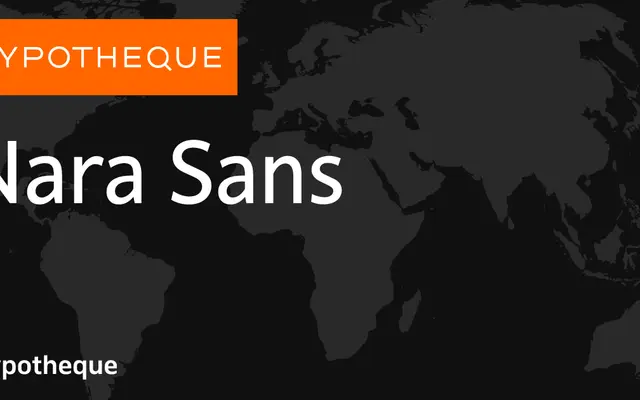
Nara Sans
A humanist sans in five weights with cursive and italic variants, released as part of a larger system alongside a companion serif family.
Nara Sans pairs with the serif Nara to form a cohesive type system, each family running across five weights from Light to Black with both cursive and italic counterparts. A variable font version is also available. The cursive styles sit between upright and italic, offering a middle register that suits running text where a full italic would feel too emphatic.
Nara Sans presents as a humanist sans-serif with cursive and italic variants across five weights, suggesting organic, calligraphic influences typical of the humanist tradition. The companion serif family Nara and the variable font offering reinforce a text-focused, multiscript-aware design approach consistent with Typotheque's humanist output.